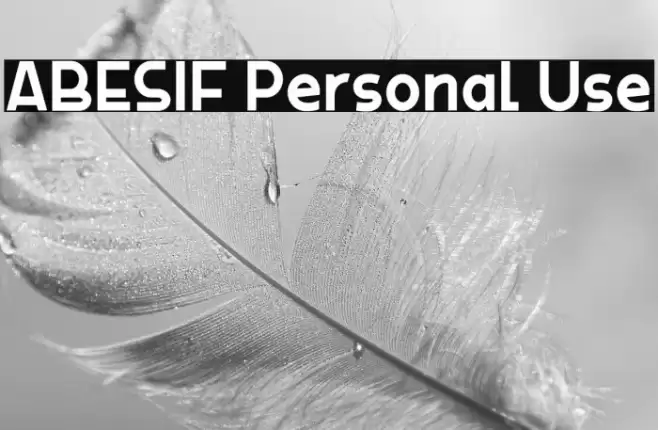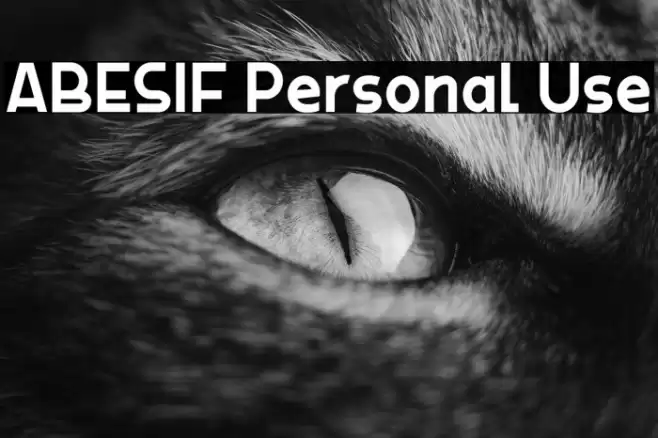
ABESIF Personal Use Font
ABESIF Personal Use Description
This font features a bold and modern sans-serif style with clean, geometric lines. The uppercase and lowercase letters are well-proportioned, offering a strong visual impact. The characters are evenly spaced, providing a balanced and harmonious appearance. The font's design is straightforward yet impactful, making it suitable for a variety of applications. Its bold weight and clear structure make it ideal for headlines and titles, ensuring readability and attention. The font's modern aesthetic is complemented by its versatility, allowing it to be used in both digital and print media.
A bold, modern sans-serif font with clean, geometric lines and even spacing from Uncategorized fonts.